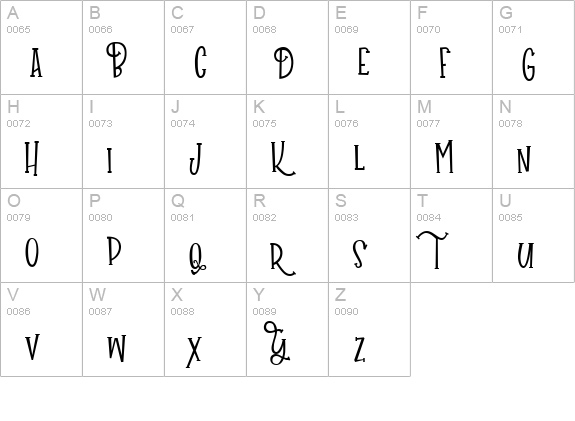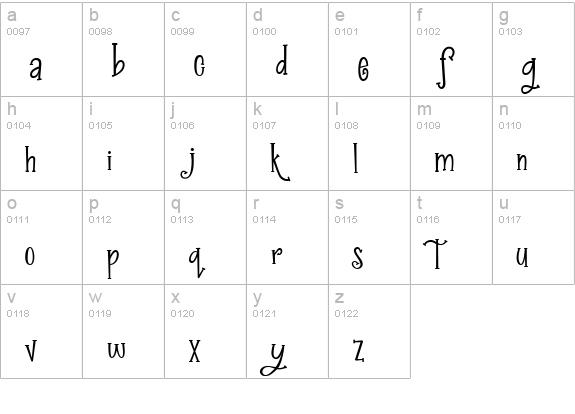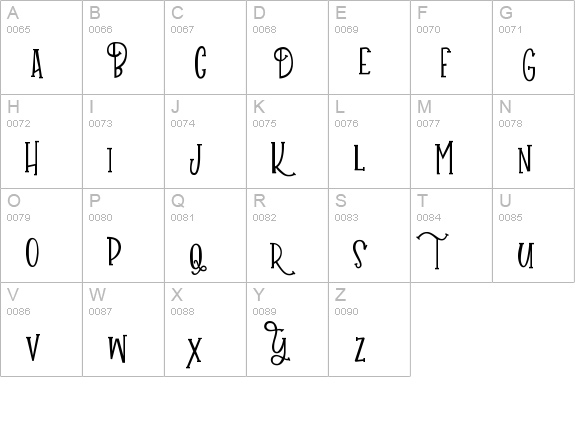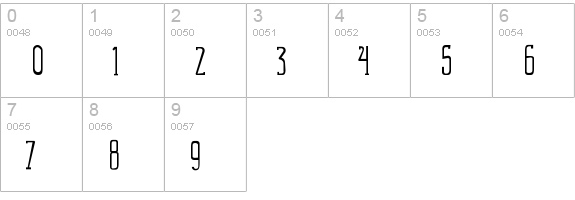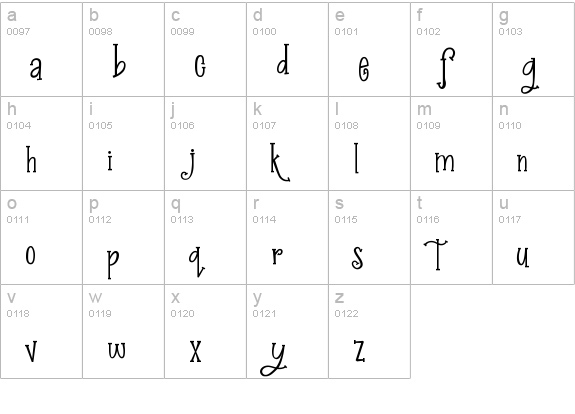
Inner Autumn Font Details
Inner Autumn is a demo font in the Fancy > Decorative category, designed by HydricDesign. It has been downloaded 198 times and is available for Windows, Mac and Linux.
Inner Autumn font is a beautiful and elegant typeface that exudes a sense of warmth and coziness. Its delicate curves and unique letterforms make it perfect for adding a touch of sophistication to any design project. The font's soft and organic lines evoke the feeling of a crisp autumn day, making it ideal for creating invitations, greeting cards, logos, and more.